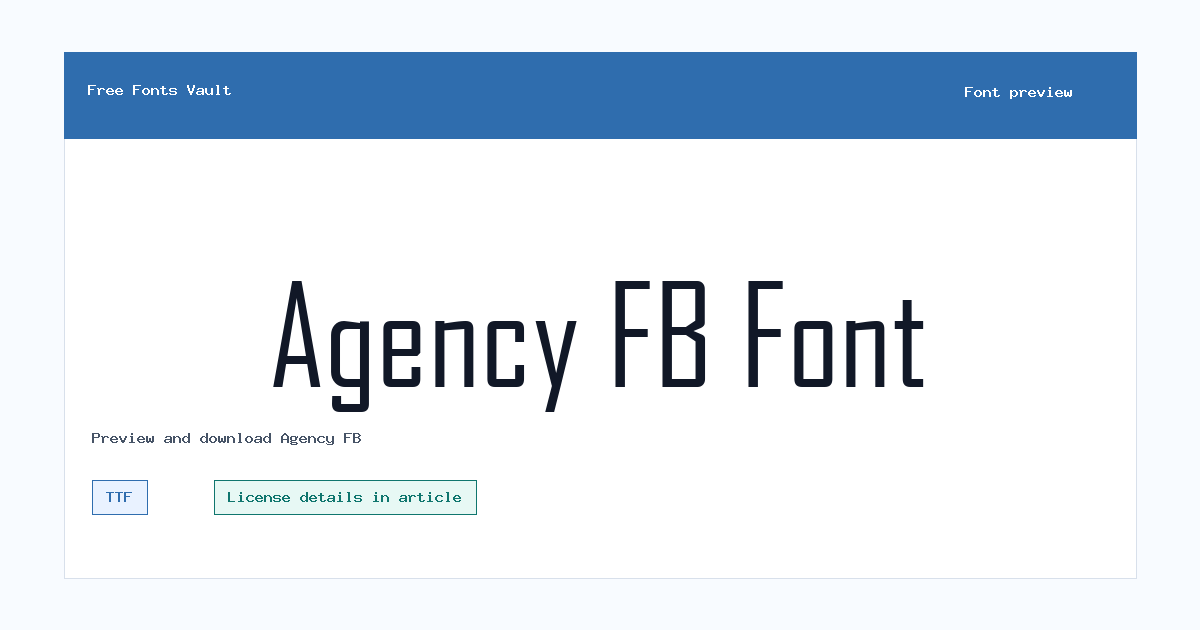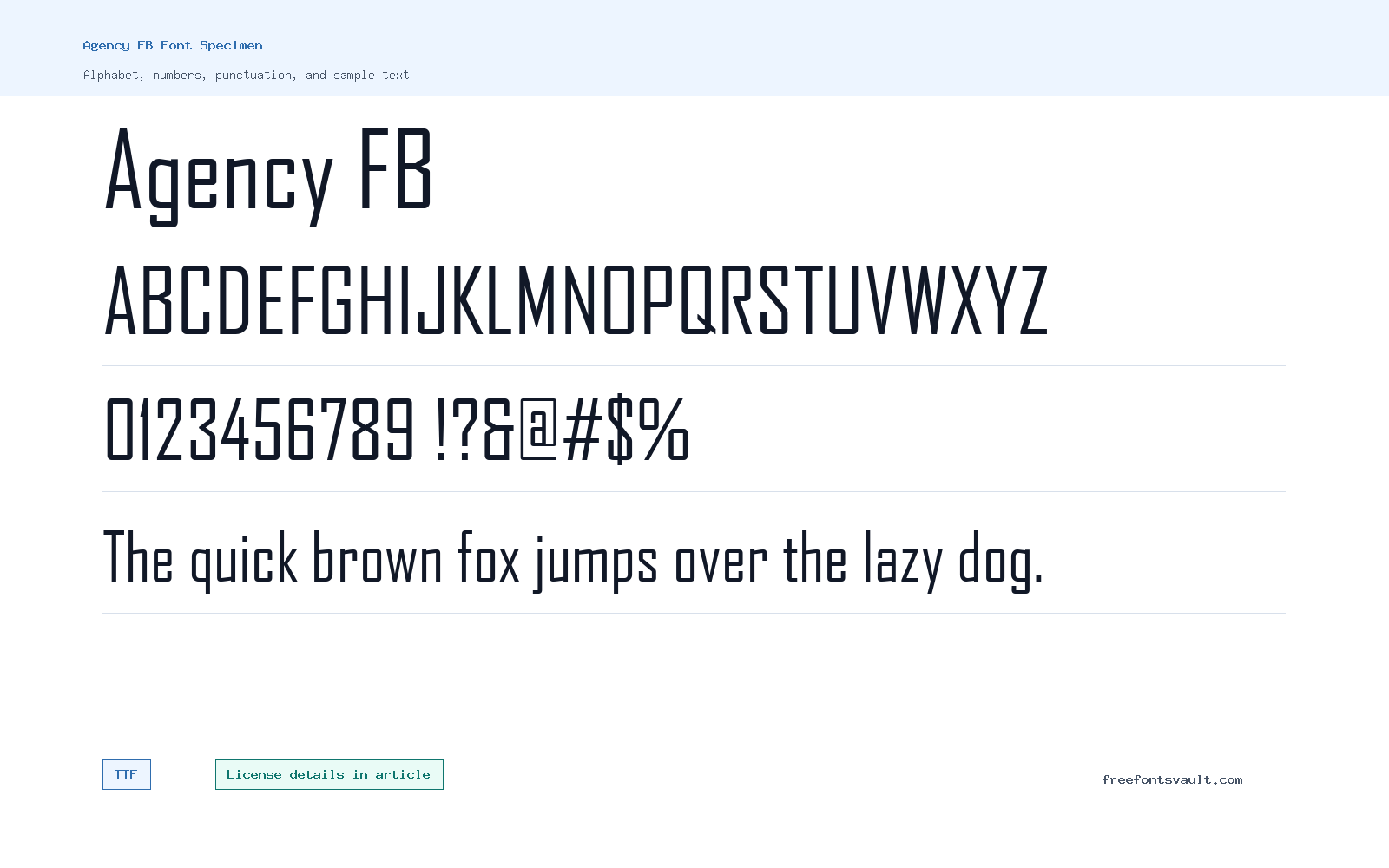
Agency FB
- Designer The Font Bureau, Inc.
- Foundry The Font Bureau, Inc.
Agency FB font.
Agency FB is a compact display font with regular and bold TrueType files, useful for strong headings, labels, posters, buttons, and short interface text.
About Agency FB Font
Agency FB gives you a direct, condensed look that can make short words feel sharp and organized. The regular weight is useful when you want a cleaner title, while the bold weight adds stronger emphasis for posters, navigation elements, game-style screens, and compact brand mockups.
Because the family is narrow and display-focused, it rewards careful spacing. It can look efficient in all caps, numbers, badges, and short callouts, but long reading text may feel tight. Test uppercase words, punctuation, and mixed-case phrases before choosing it for a finished layout.
Agency FB can be especially useful when a design needs compact authority without taking much horizontal space. It can make scoreboard text, industrial headings, tab labels, and poster details feel organized. The bold file gives you a quick hierarchy option, but it should still be used with enough spacing so letters do not merge in dense layouts.
- Compact display style for short, high-impact text
- Normal upright styles that are easy to test in design apps
- Good contrast between regular and bold weights
- Works best with deliberate tracking and generous line spacing
- Posters, headers, title cards, and event graphics
- Buttons, navigation labels, interface mockups, and dashboard accents
- Badges, labels, packaging concepts, and short brand text
- Sports, technology, industrial, or game-inspired layouts
- Projects where regular and bold display weights are enough
The Font Bureau, Inc. is credited as both designer and foundry. Keep that credit with the font files, especially if you are organizing a design library or handing files to another designer.
Try the regular weight for cleaner labels and the bold weight for emphasis. Add tracking when all-caps words feel tight, and use a calmer companion font for paragraphs or explanatory copy. If you are setting numbers, acronyms, or short commands, compare both weights side by side before choosing the final style.
Is Agency FB good for body text?
It is better for short display text, labels, and headings. Test carefully before using it in long paragraphs.
What projects suit Agency FB?
It works well for compact titles, posters, interface labels, badges, and design mockups that need a firm display style.
Who is credited for Agency FB?
The Font Bureau, Inc. is credited as designer and foundry.